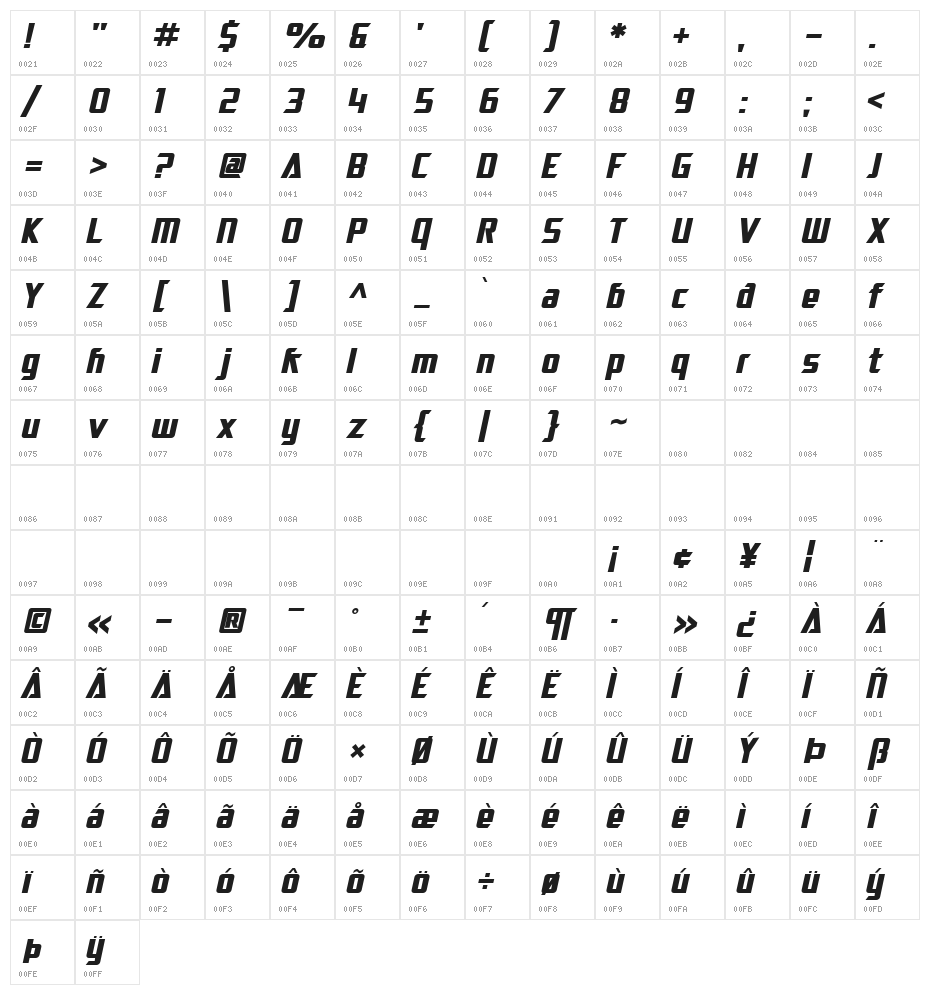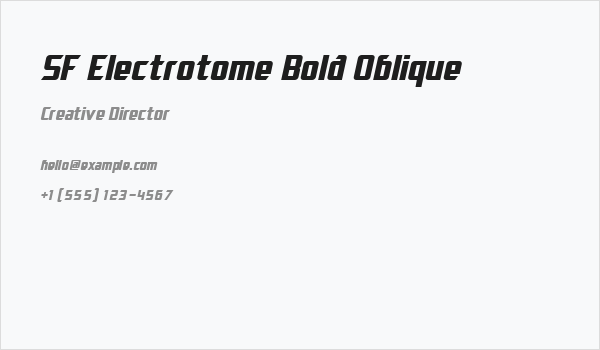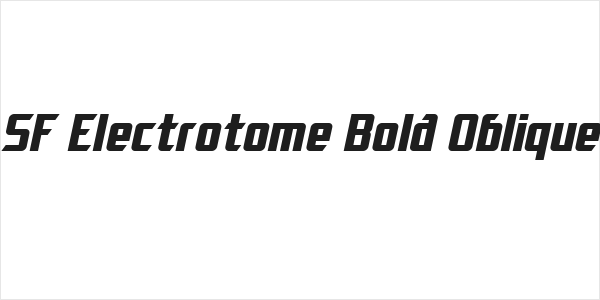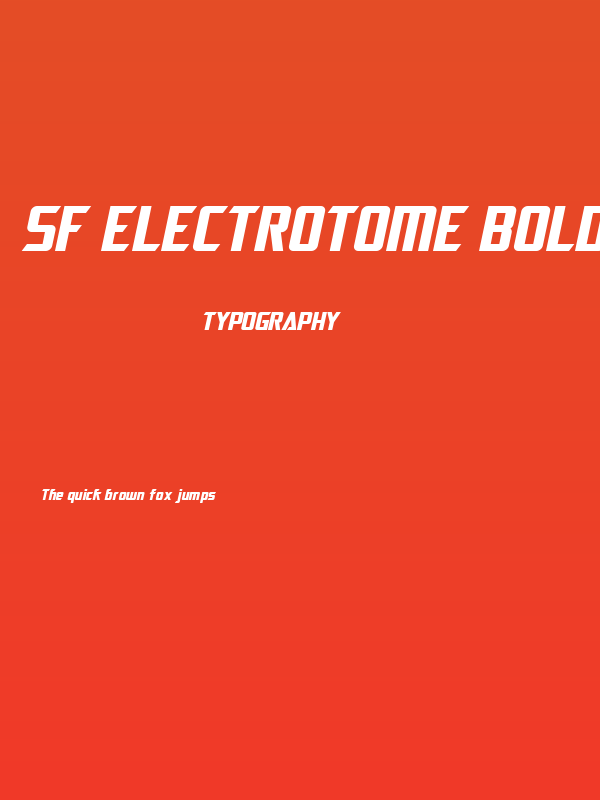
SF Electrotome Bold Oblique Font
SF Electrotome Bold Oblique Description
This font features a bold and oblique style with a futuristic and dynamic appearance. The characters are sharply angled, giving a sense of motion and energy. The uppercase letters are tall and narrow, while the lowercase letters maintain a consistent height with a slightly condensed form. The numbers are distinct and align well with the overall geometric design. Special characters are included, matching the bold and angular theme. This font is ideal for projects that require a modern and edgy look, such as technology branding or sports-related designs.
| Proposed Projects | Ideal for technology branding, sports designs, and modern advertising. |